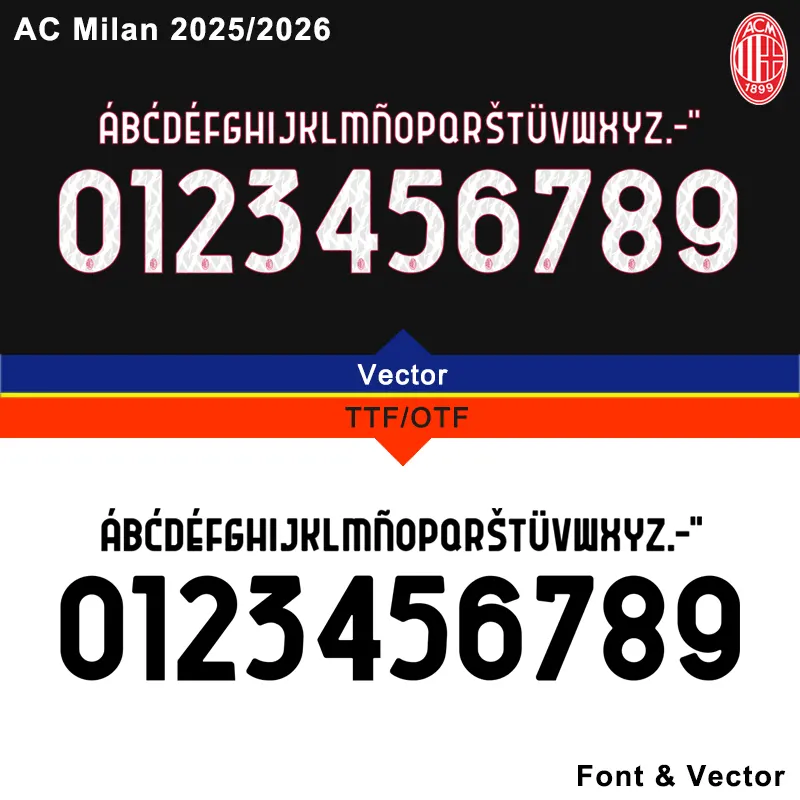
Grab the authentic AC Milan 2025/2026 Font for custom Associazione Calcio Milan Serie A home jersey design and print work. This fully digital typography pack replicates the official 2025-26 home kit lettering, available for instant download right after checkout.
AC Milan 2025/2026 Font | Official Rossoneri Serie A Home Typography
The AC Milan 2025-2026 Font is a precise digital recreation of the official jersey lettering used by AC Milan for Serie A home matches during the 2025-2026 campaign. Designed for print studios, jersey restorers and custom apparel designers, this font features heavy rounded geometric sans-serif letterforms, numerals filled with subtle internal flame texture, thin red outer stroke outline, embedded AC Milan club crest at the base of each digit, plus a full set of European diacritic accented characters to fit all official Milan player names. The built-in AC Milan crest glyph can be activated by pressing Shift + - within TTF/OTF font files, optimized for the iconic red and black vertical striped home jersey.
Whether you’re recreating vintage replica home jerseys, creating personalized fan kits, or fulfilling bulk vinyl cut orders for Serie A supporters, this complete font set delivers crisp, print-ready vector characters with authentic official kerning and proportions.